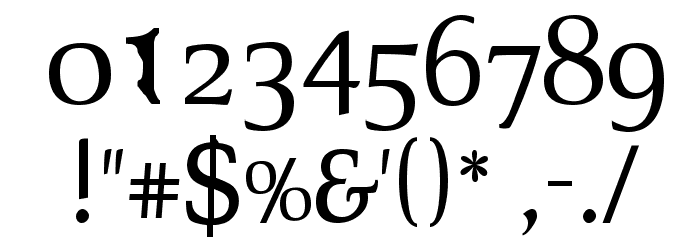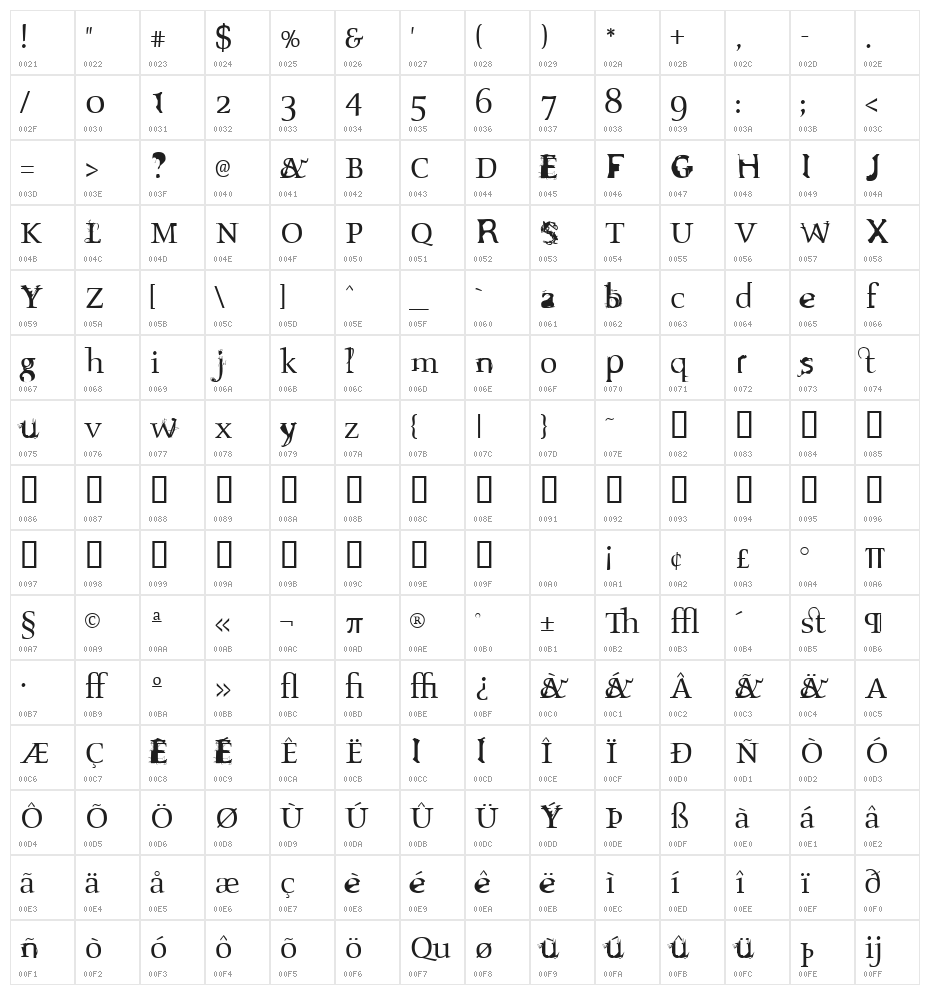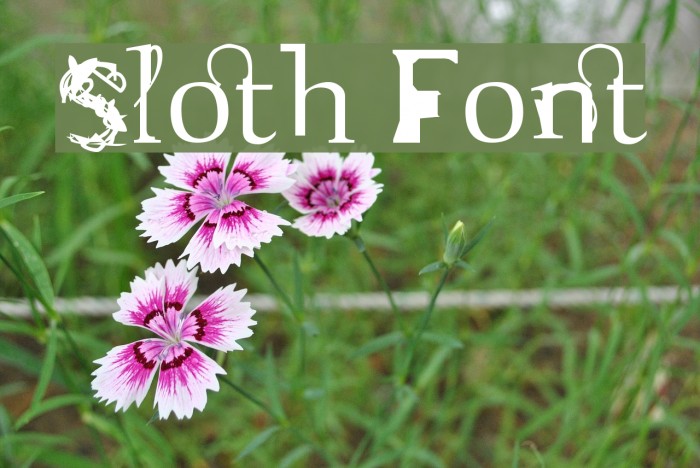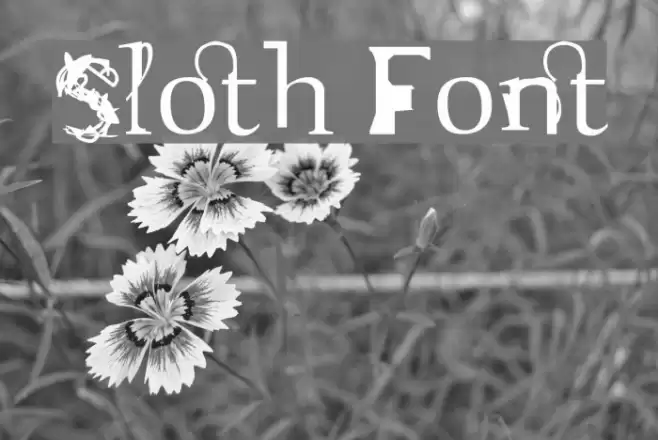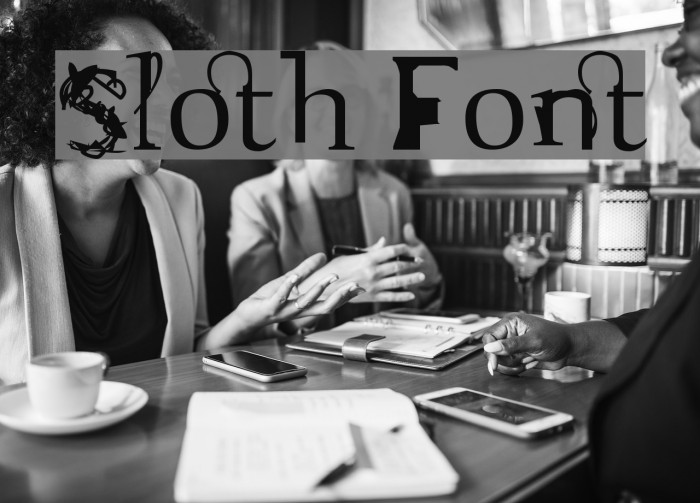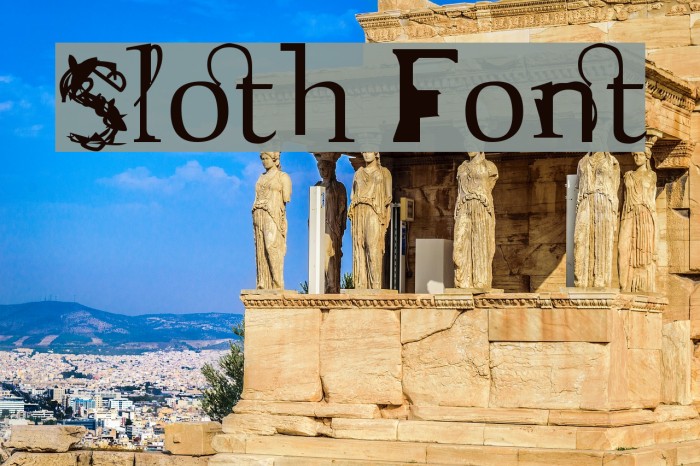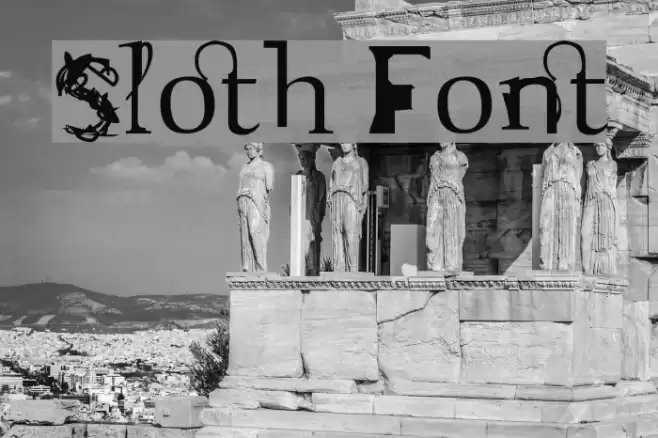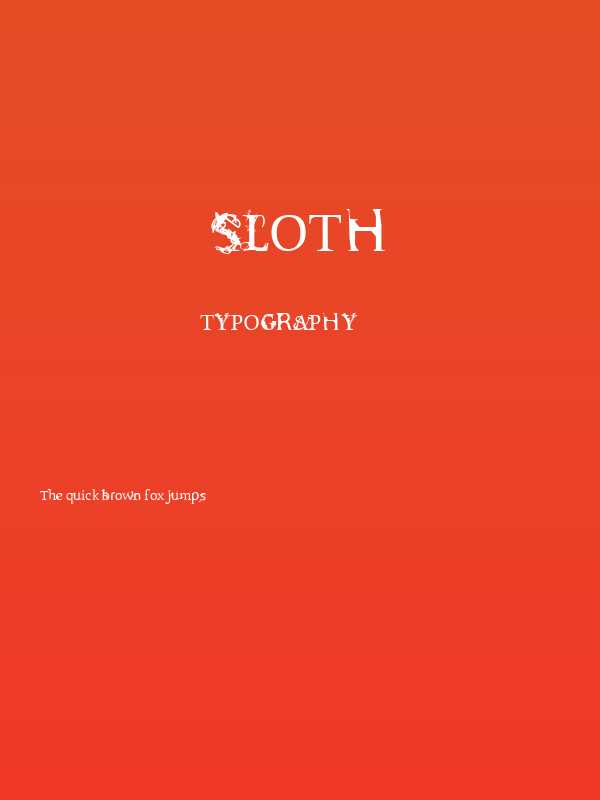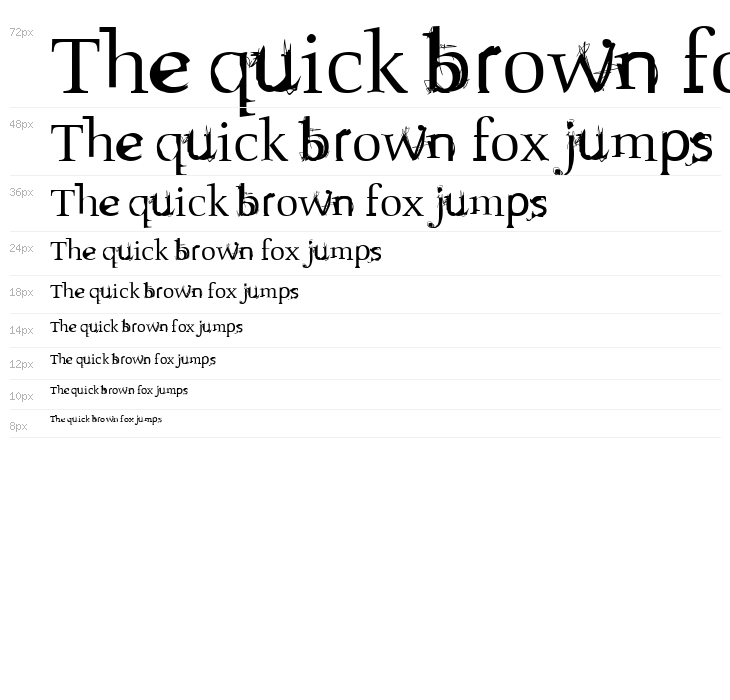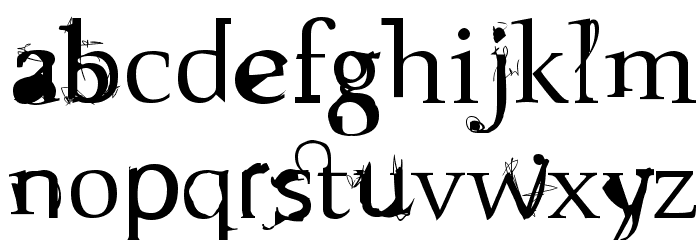
Sloth Font
Sloth Description
This font features a unique and artistic design, combining traditional serif elements with decorative, vine-like embellishments that intertwine with the characters. The uppercase letters are bold and striking, with certain letters such as 'A', 'F', and 'S' showcasing intricate details that resemble natural growths or flourishes. The lowercase letters maintain a consistent style, with some characters like 'g' and 'y' having distinctive loops and tails. Numbers are clear and bold, ensuring readability while maintaining the decorative theme. Special characters are equally ornate, adding a whimsical touch to punctuation marks. This font is ideal for projects that require a blend of elegance and creativity.
| Use Case | Headlines, Logos, Artistic projects |
| Proposed Projects | Ideal for book covers, artistic posters, branding for nature-themed products, or any project seeking a creative and elegant touch. |